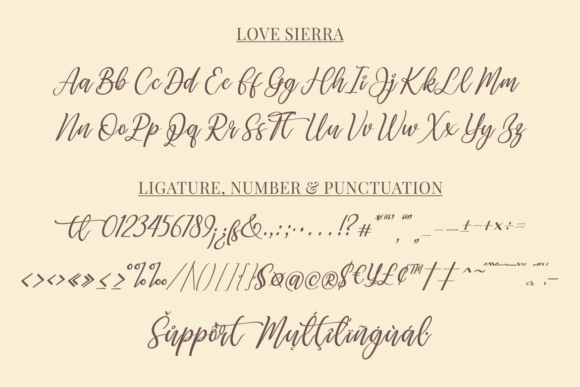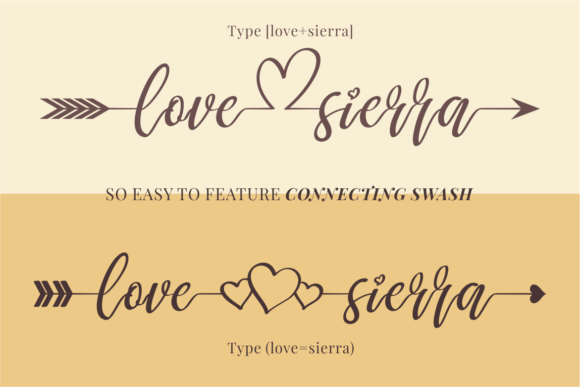
Love Sierra Font
db-ku.com - Script & Handwritten -- Love Sierra is a stylish and delicate handwritten font suitable for a wide spectrum of applications. From greeting cards to headlines, you can add this spectacular font to any of your creative projects, and it will guarantee them a romantic touch.